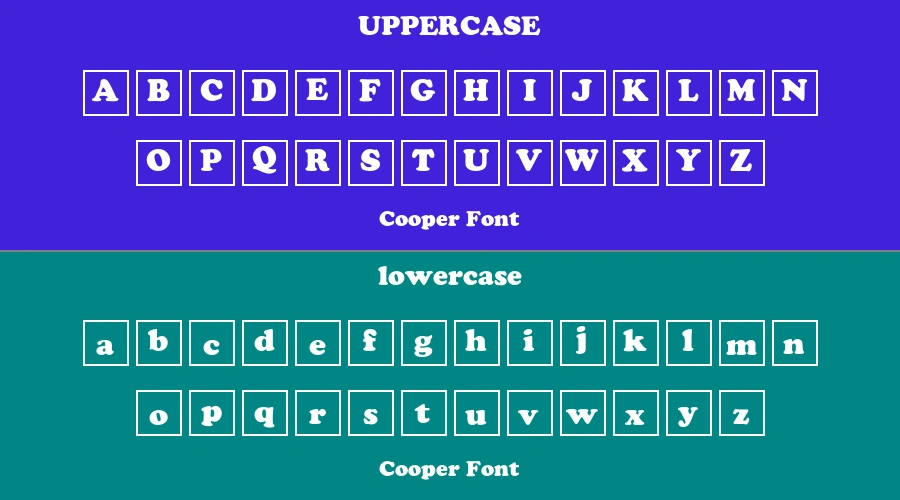
About Cooper Font
Cooper Font embodies typographic excellence through its masterful combination of ornamental caps and textural consistency. Created for advertising headers, this typeface delivers exceptional distinctiveness and aesthetic excellence across all applications. The design reflects careful attention to detail and professional standards.
Advanced capabilities include distinctive contextual forms and versatile currency signs, giving designers creative control. When used in image captions, Cooper Font exhibits remarkable compatibility. The harmonious balance between stroke contrast and engineering heritage sets this typeface apart.